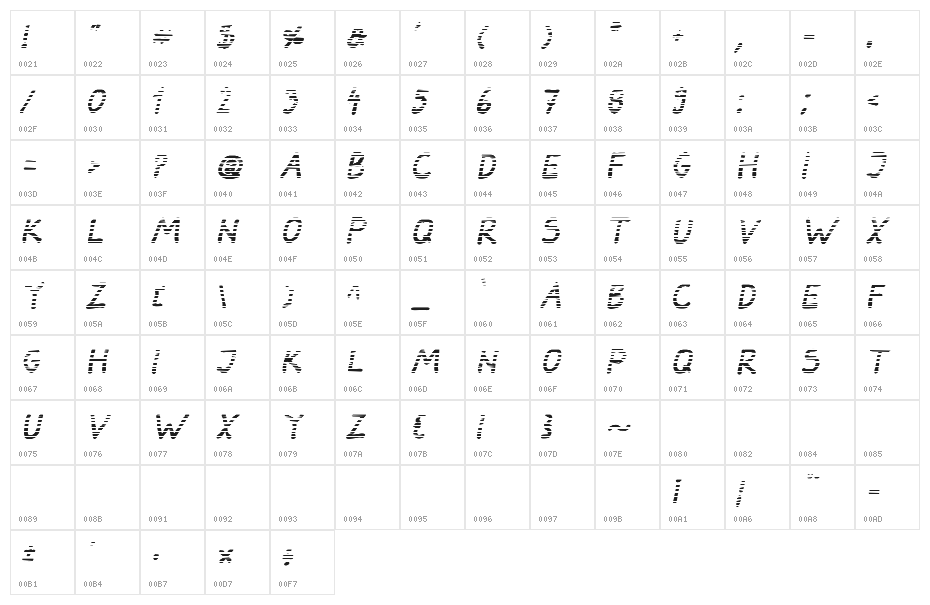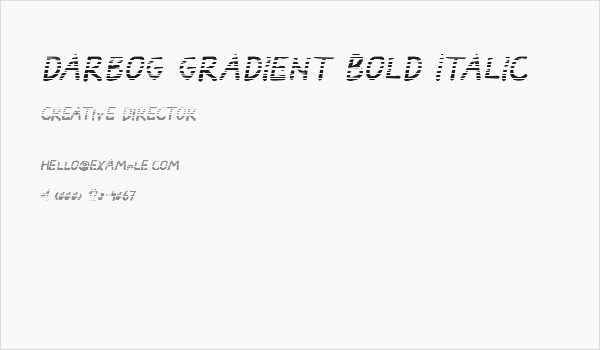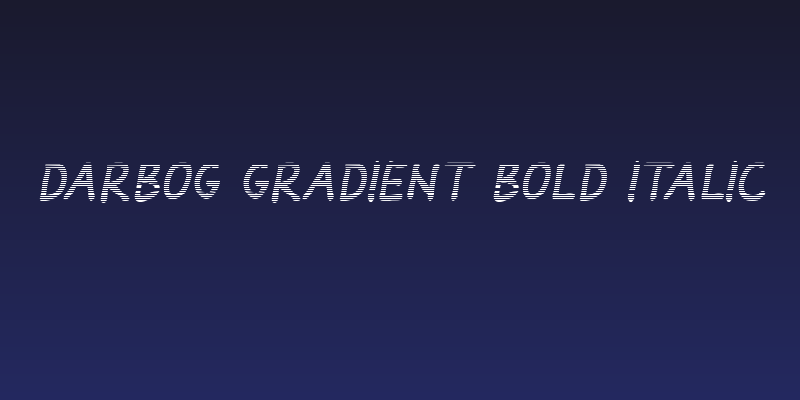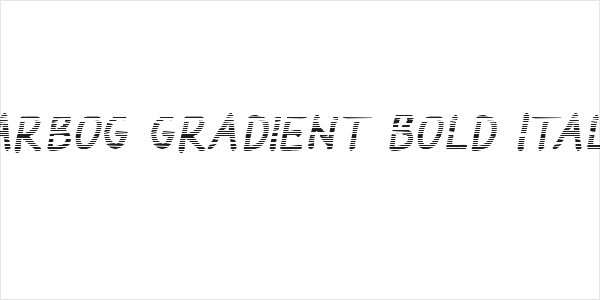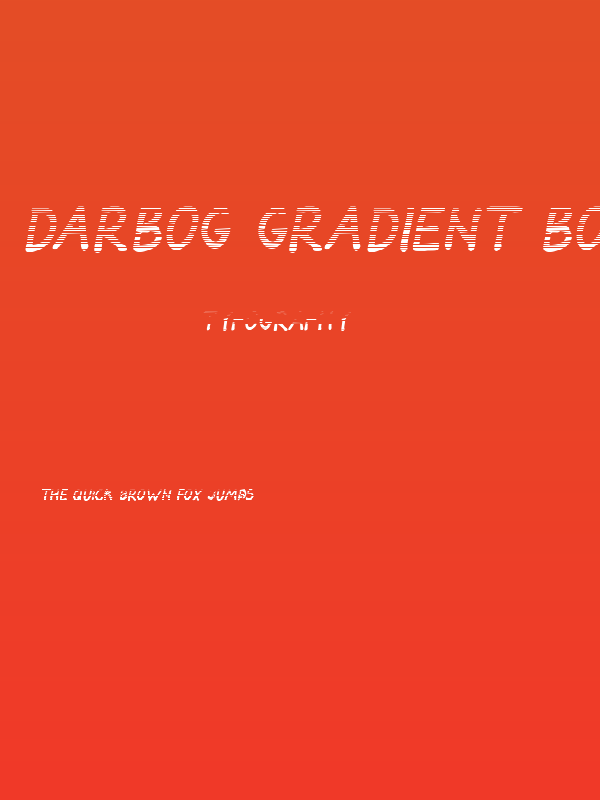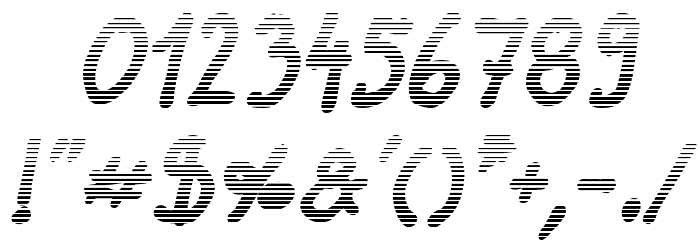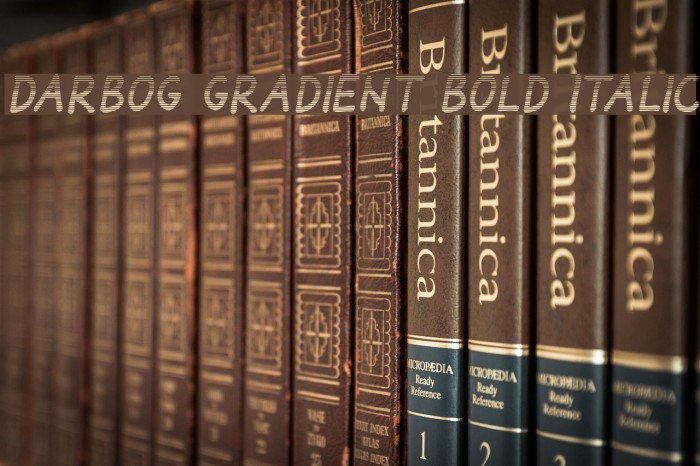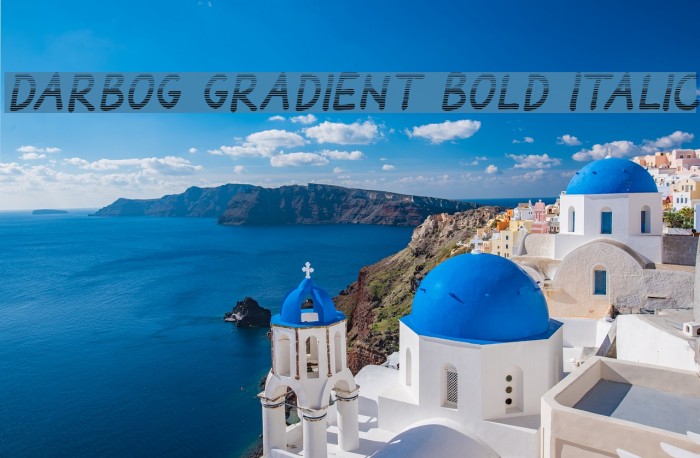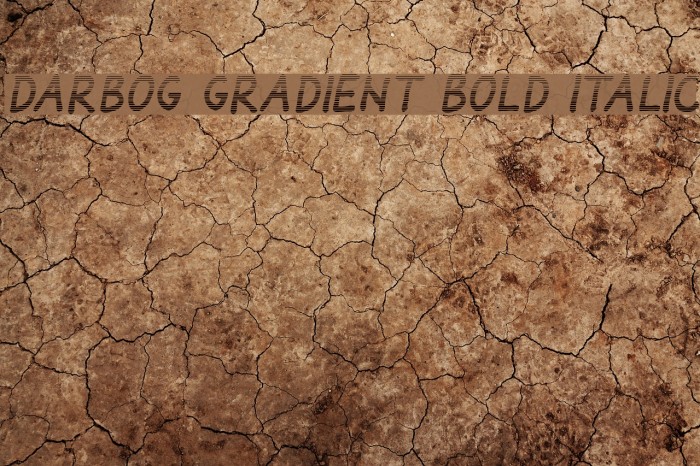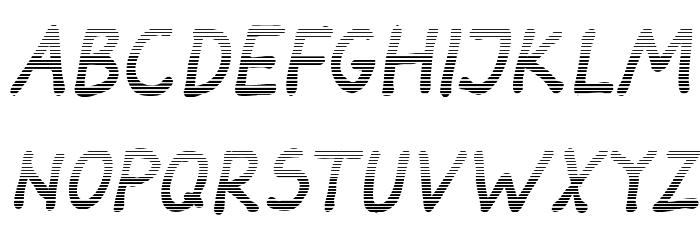
Darbog gradient Bold Italic Font
Darbog gradient Bold Italic Description
This font features a bold and italicized style with a unique gradient effect created by horizontal lines. The characters are slightly slanted, giving a dynamic and modern appearance. The boldness of the letters ensures strong visibility, while the gradient lines add a decorative touch, making it stand out. The uppercase and lowercase letters maintain consistent styling, and the numerals and special characters follow the same design pattern, ensuring uniformity across all glyphs.
| Proposed Projects | Ideal for modern branding, eye-catching headlines, and creative posters where a bold statement is needed. |